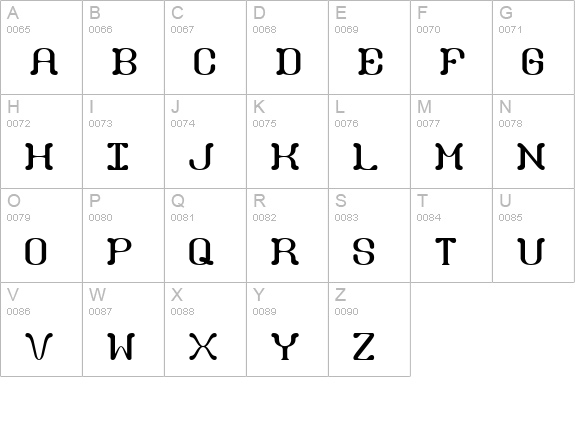
Draggle BRK font is a stylish and modern typeface that exudes elegance and sophistication. With its sleek design and clean lines, this font is perfect for a wide range of design projects, from branding to advertising to editorial design. The unique letterforms of Draggle BRK font create a distinctive and eye-catching look that will make your designs stand out. What's even better is that Draggle BRK font is available for free download at FontsMarket.com. You can easily access this font and use it in your projects without any cost. Whether you're a designer looking to add a touch of flair to your work or a business owner in need of a fresh and contemporary font for your branding, Draggle BRK font is the perfect choice. Download it today and elevate your design projects with this fantastic typeface.